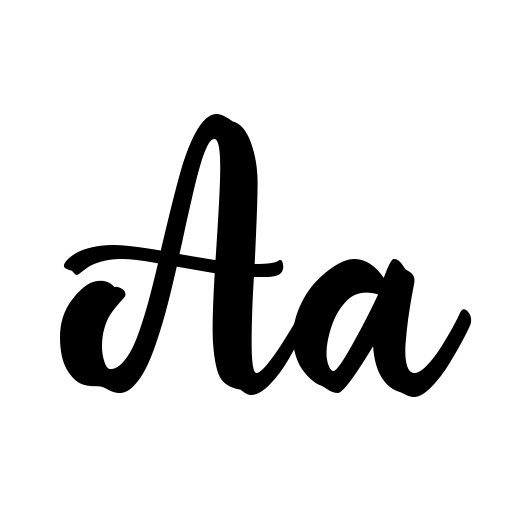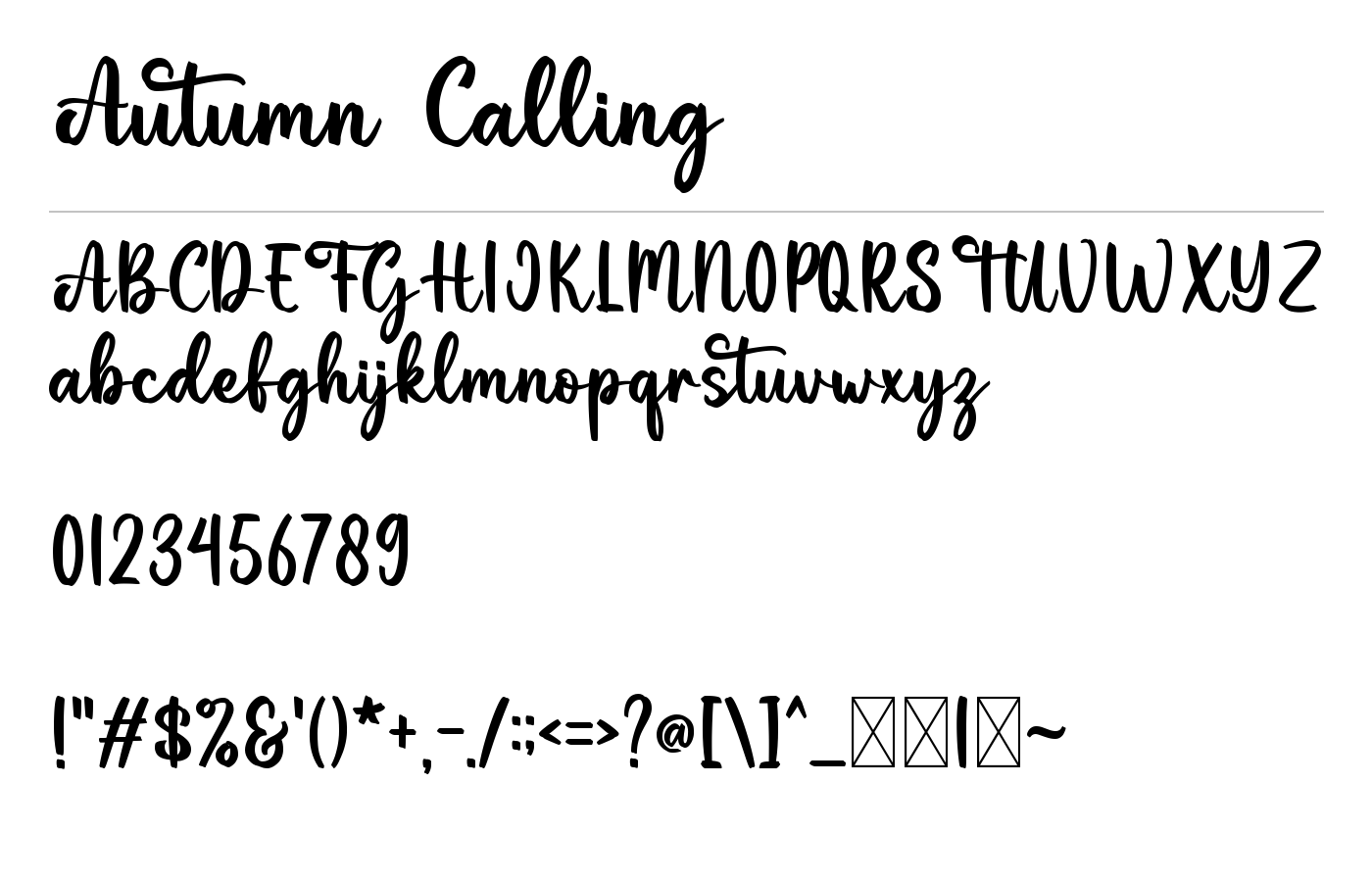
Autumn Calling is a charming, casual script font with a hand-lettered feel that brings warmth and personality to any design. Its smooth, medium-weight strokes and playful curves make it ideal for adding a friendly, approachable touch to invitations, branding, and lifestyle projects. This font works wonderfully for headlines, logos, and packaging where a personal, human touch is desired.
Autumn Calling Font
About Autumn Calling Font